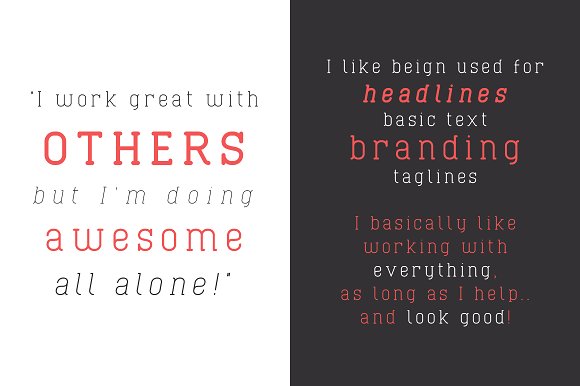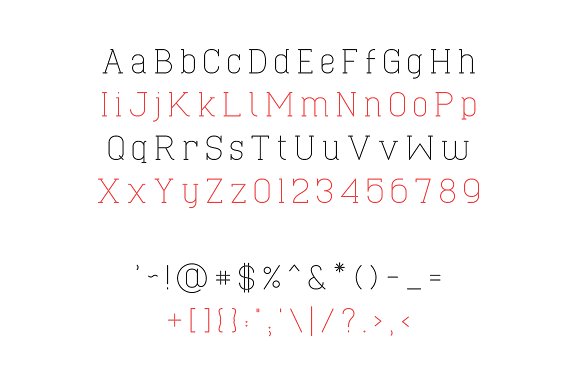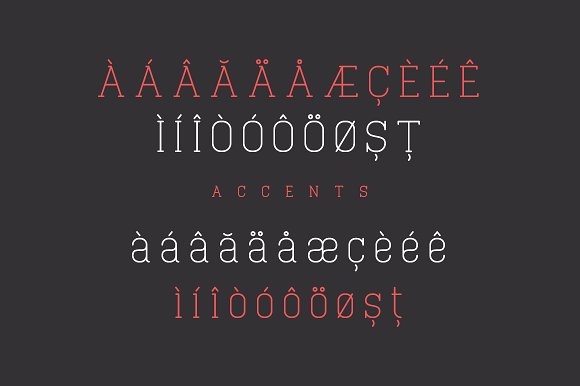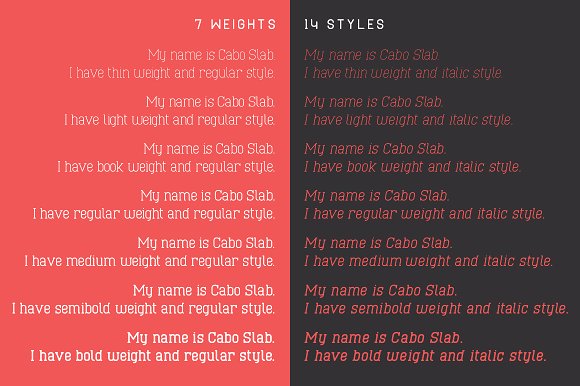
Cabo Slab Font: Elevate Your Design with Elegant Slab Serif Typography
When it comes to creating visually stunning designs, typography plays a crucial role. A well-chosen font can elevate your project from ordinary to extraordinary. If you’re a designer or crafter looking for a sophisticated and elegant slab serif font, look no further than the Cabo Slab Font. In this article, we’ll explore the features and benefits of the Cabo Slab Family, a versatile and stylish font family that’s sure to take your designs to the next level.
Introducing the Cabo Slab Family
The Cabo Slab Family is a beautiful slab serif font family that exudes elegance and refinement. Based on the sans serif version of this font called Cabo Rounded, the Cabo Slab Family offers a range of styles to suit various design needs. The family consists of 7 weights and 14 styles, providing a wealth of options for designers and crafters.
Key Features of the Cabo Slab Font
- 7 Weights and 14 Styles: The Cabo Slab Family offers a range of weights and styles, from light to bold, and from regular to italic. This versatility makes it perfect for a wide range of design applications, from headings and titles to body text.
- Elegant Slab Serif Design: The Cabo Slab Font features a classic slab serif design with a modern twist. The font’s elegant lines and subtle curves make it perfect for designs that require a touch of sophistication.
- Based on Cabo Rounded: The Cabo Slab Font is based on the popular Cabo Rounded font, which means it retains the same friendly and approachable feel.
Benefits of Using the Cabo Slab Font
So, why choose the Cabo Slab Font for your design projects? Here are just a few benefits:
- Improved Readability: The Cabo Slab Font is designed to be highly readable, making it perfect for body text, headings, and titles.
- Enhanced Visual Appeal: The font’s elegant design and range of styles make it perfect for creating visually stunning designs that grab attention.
- Versatility: With 7 weights and 14 styles, the Cabo Slab Family is versatile enough to be used in a wide range of design applications, from print to digital.
Design Applications for the Cabo Slab Font
The Cabo Slab Font is perfect for a variety of design applications, including:
- Branding and Logo Design: The font’s elegant design makes it perfect for creating sophisticated logos and brand identities.
- Print Design: The Cabo Slab Font is ideal for print design, including business cards, brochures, and posters.
- Digital Design: The font is also suitable for digital design, including websites, social media graphics, and email marketing campaigns.
In conclusion, the Cabo Slab Font is a versatile and elegant slab serif font family that’s perfect for designers and crafters looking to elevate their designs. With its range of weights and styles, improved readability, and enhanced visual appeal, the Cabo Slab Family is a valuable addition to any design toolkit. Whether you’re working on a branding project, print design, or digital design, the Cabo Slab Font is sure to deliver stunning results.